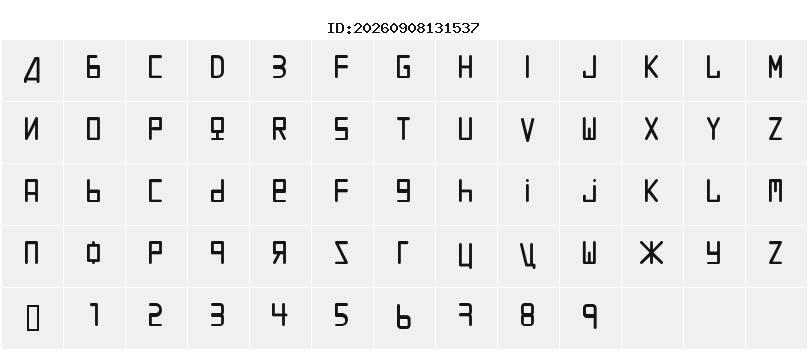
URALthin Preview
• Font Name: URALthin
• Full Font Name: URALthin
About URALthin.ttf
URALthin.ttf is a modern, elegant sans-serif font designed for ultimate readability and visual harmony. Perfect for branding, headlines, web design, and print materials.